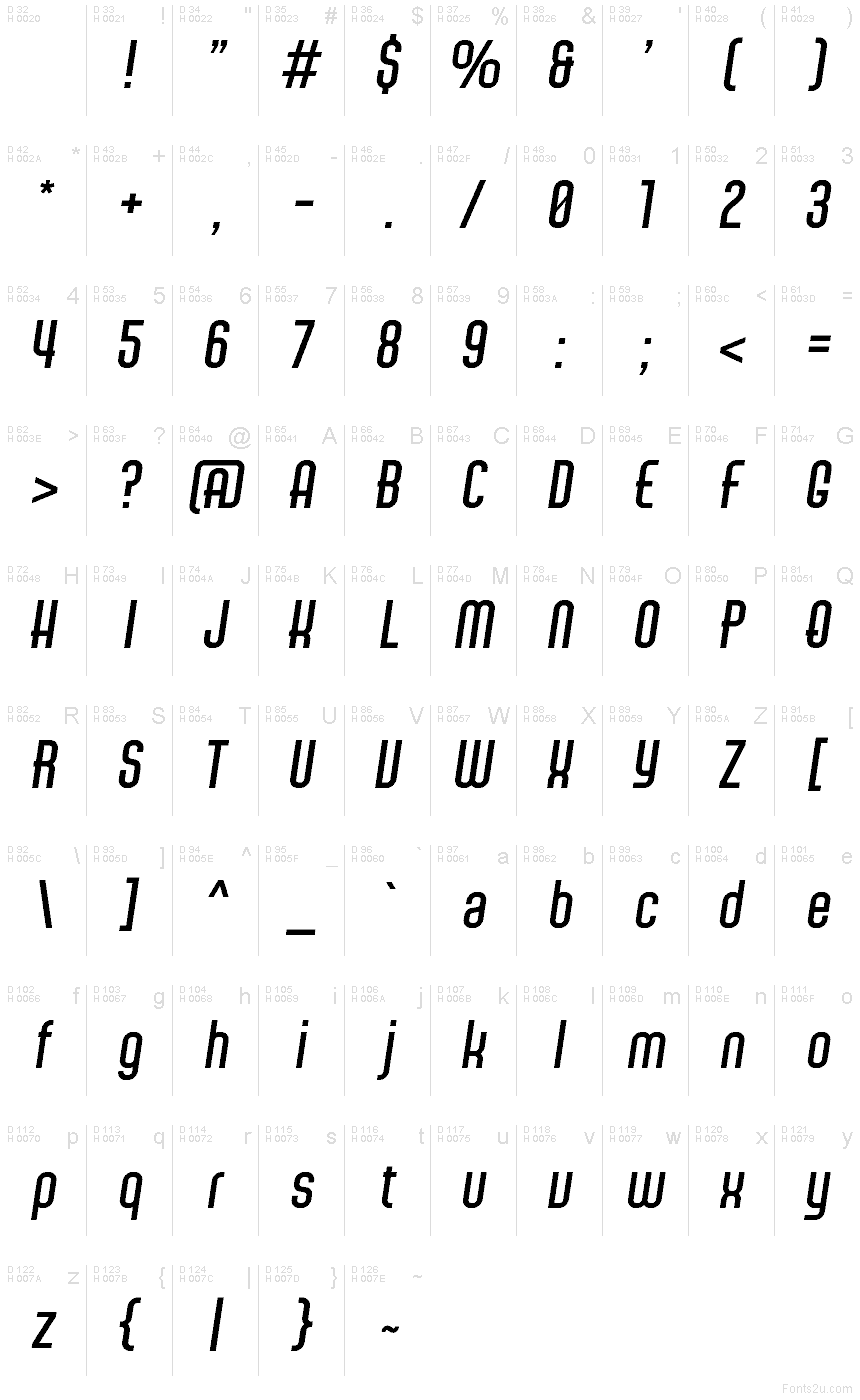
Air Americana Bold Italic
Air Americana Bold Italic font, designed by Tiago Sá, is a display font inspired by the nostalgic allure of mid-century modern design. Condensed yet streamlined, it offers a retro touch with polished and professional ambiance across its characters. Enjoy versatile branding potential in this intriguing free font that can uniquely enrich your typographical projects.
Thanks to its informative quality, Air Americana Bold Italic is fitting for scientific publications and biological writings. Suitable use cases include report layouts, typography-focused magazine pages, highlighted messages in infographics article titles and covers along with stimulating professions such as mathematicians’, physicists’, biochemists’ journal typesetting.